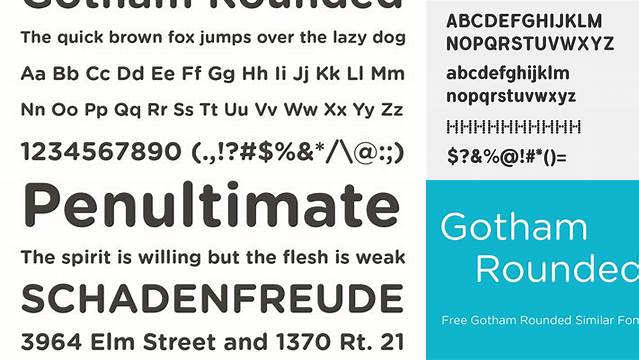
Are you looking for a sleek, modern typeface that's both versatile and visually appealing? Look no further than free fonts Gotham Rounded! This comprehensive guide will walk you through everything you need to know about downloading, using, and making the most of this fantastic font. We'll cover the basics, delve into its design, explore its various uses, and even provide some tips and tricks to elevate your designs. So, guys, get ready to unlock the power of Gotham Rounded and take your creative projects to the next level!
Gotham Rounded Font: A Comprehensive Overview
Free fonts Gotham Rounded have taken the design world by storm. It's a contemporary sans-serif typeface that boasts a friendly and approachable aesthetic. Characterized by its rounded terminals, this font family exudes a sense of warmth and modernity. This guide is not just about downloading a font; it's about understanding a design tool that, when used correctly, can significantly enhance visual communication. We'll explore the core features of the font, which contributes to its distinctive appearance and widespread popularity. This section will help you understand the subtle nuances of Gotham Rounded, ensuring you can wield its design power effectively. We'll dive into its origins and design principles and examine its unique qualities. This section will equip you with the knowledge to appreciate and utilize Gotham Rounded fully. In terms of design, Gotham Rounded offers a balance between geometric precision and human-centered design. The rounded terminals soften the font, making it more inviting and approachable. Its clean lines and open counters contribute to excellent readability, even at smaller sizes. The font family often includes various weights and styles, from light to bold, enabling designers to use it in numerous applications. Understanding these aspects is crucial for effective design. The design also offers versatility. This adaptability makes it a favorite among designers for various projects, from branding to web design. The font’s clarity also contributes to its usefulness. This readability is particularly important in digital interfaces and print materials. The design of the font reflects contemporary design values, and we will further discuss these values to enhance your design practices. Finally, we will evaluate the various aspects of the font’s utility to enhance your future design projects.
Decoding the Design: Features and Characteristics
When we explore the details, it's clear that free fonts Gotham Rounded offer unique characteristics. The design of the font allows for a variety of applications and user needs. First and foremost, the rounded terminals are a standout feature. These rounded edges give the font a friendly and approachable appearance, which is perfect for projects that aim to connect with the audience. The typeface is designed with geometric principles, providing balance and harmony within the design. Gotham Rounded's design allows for a wide range of weights and styles, enabling designers to create visual hierarchies. This also allows designers to create different looks, providing various design options. This design also has high legibility, making it a good choice for various design projects. We can use this font to create designs of different applications. This feature ensures that the text remains clear and easy to read, even in smaller sizes. The design of each character contributes to its unique personality. The design features contribute to the font's versatility and adaptability in different design contexts. Gotham Rounded has been designed to perform well in many situations. These characteristics work together to provide excellent readability, versatility, and a modern aesthetic. This design choice is suitable for various projects, and we will further examine these various projects to enhance your future design projects. Finally, we will discuss the visual impact and design principles of the font to enable better design practices.